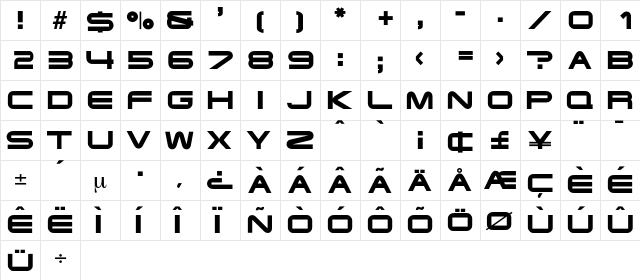
Jeepjeep Regular
Design Context for Jeepjeep Typeface
Jeepjeep is a composed and adaptable typeface that performs quietly and consistently across a wide range of design contexts.